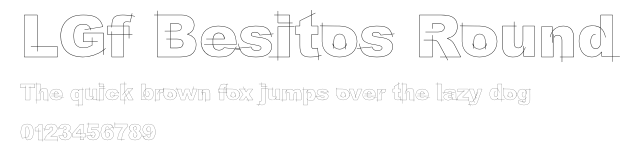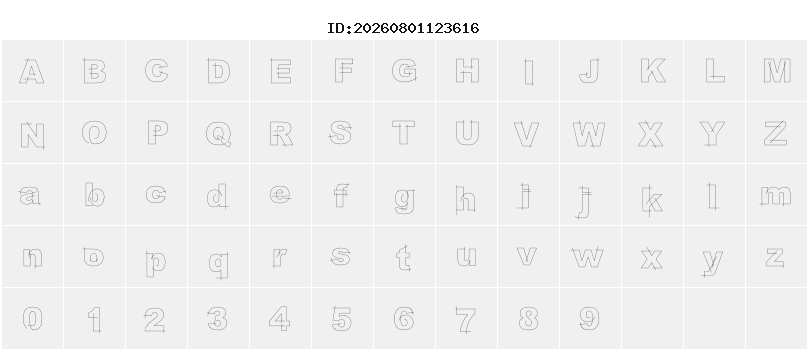
• Font Name: LGf Besitos Round
• Designer: Manuel Lage
• Description: LGf Besitos Round Light is a font by Manuel Lage, designed by Manuel Lage in 2016.
About LGf Besitos Round.otf
LGf Besitos Round.otf is a modern, elegant sans-serif font designed for ultimate readability and visual harmony. Perfect for branding, headlines, web design, and print materials.